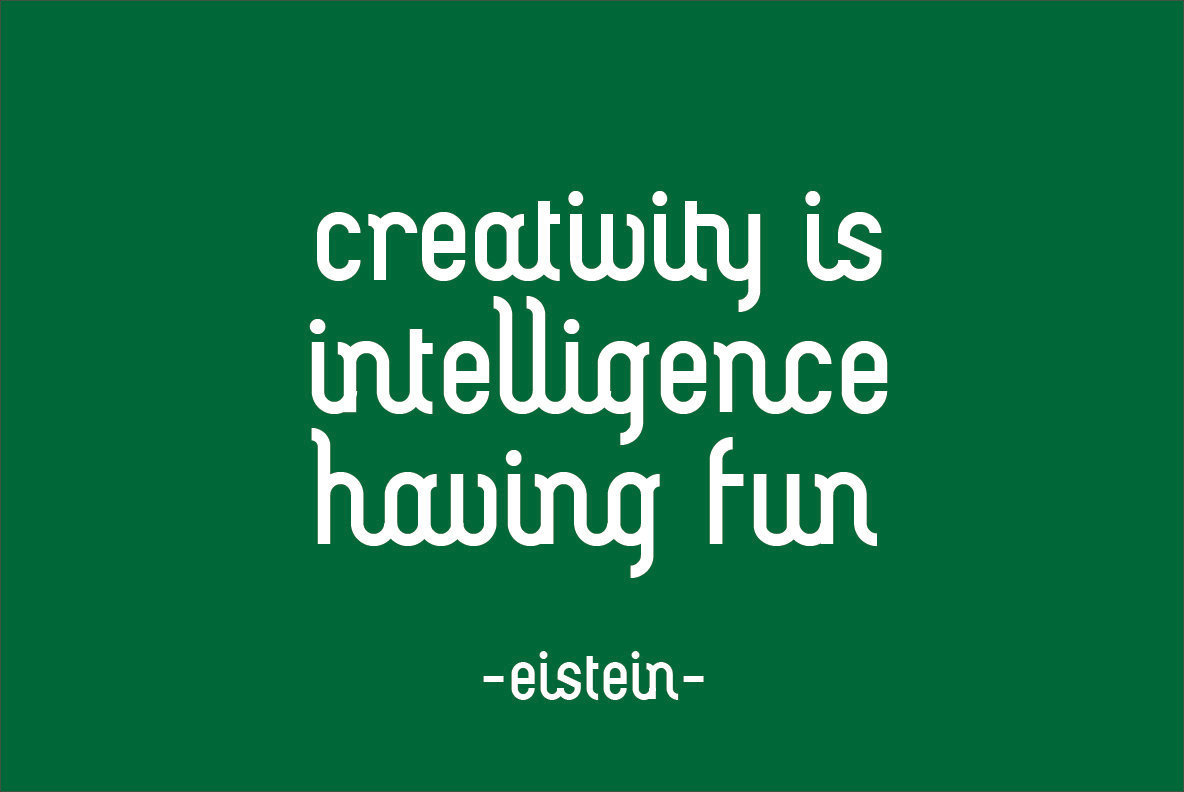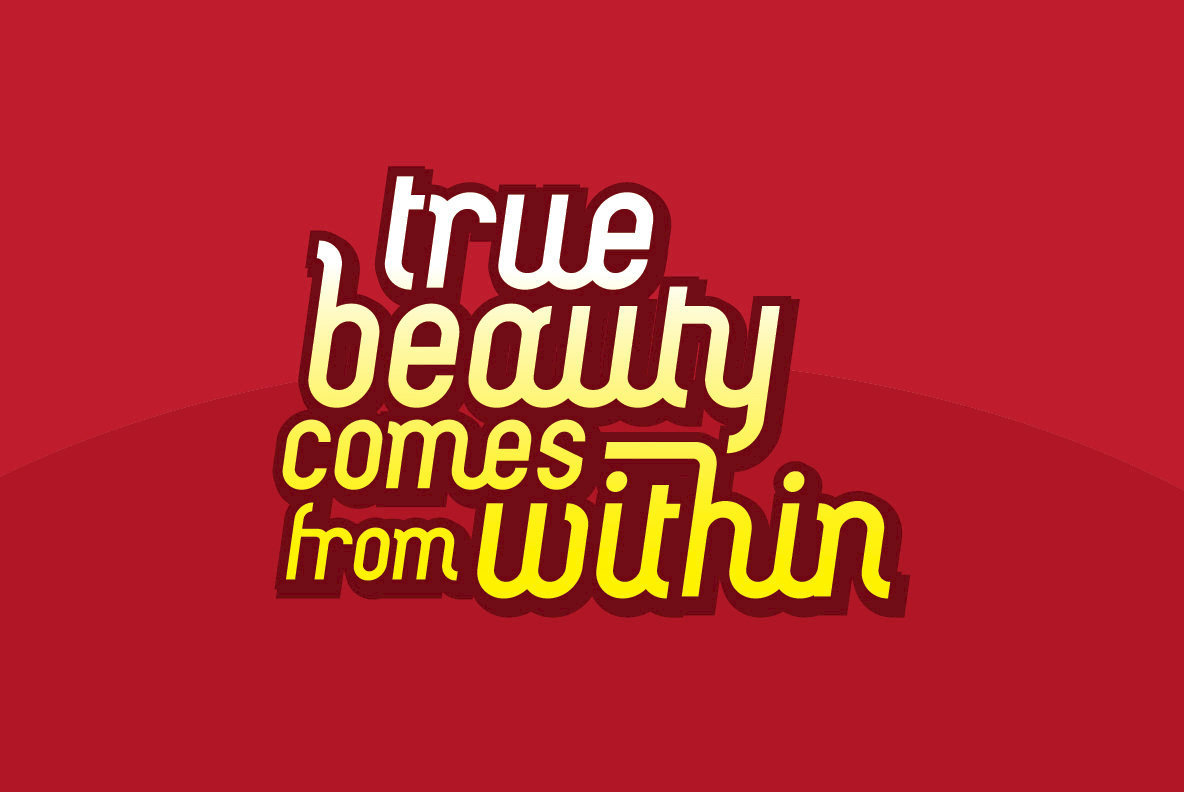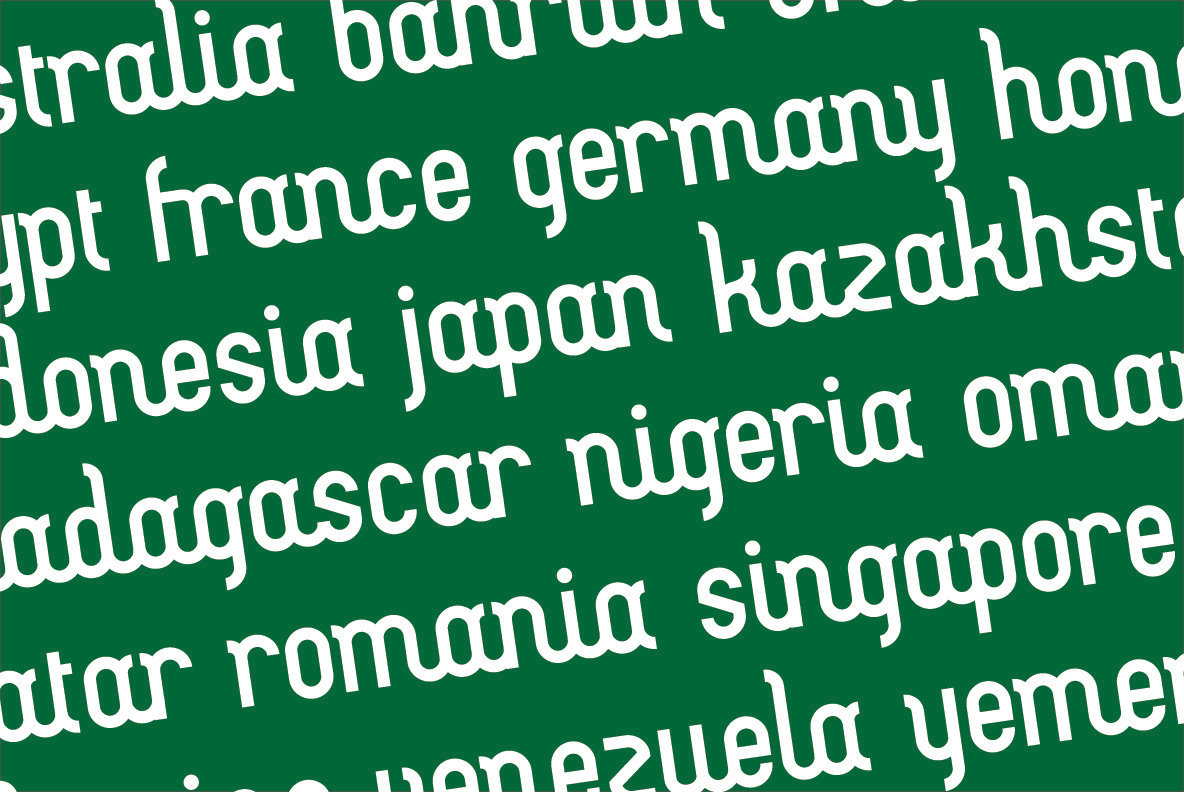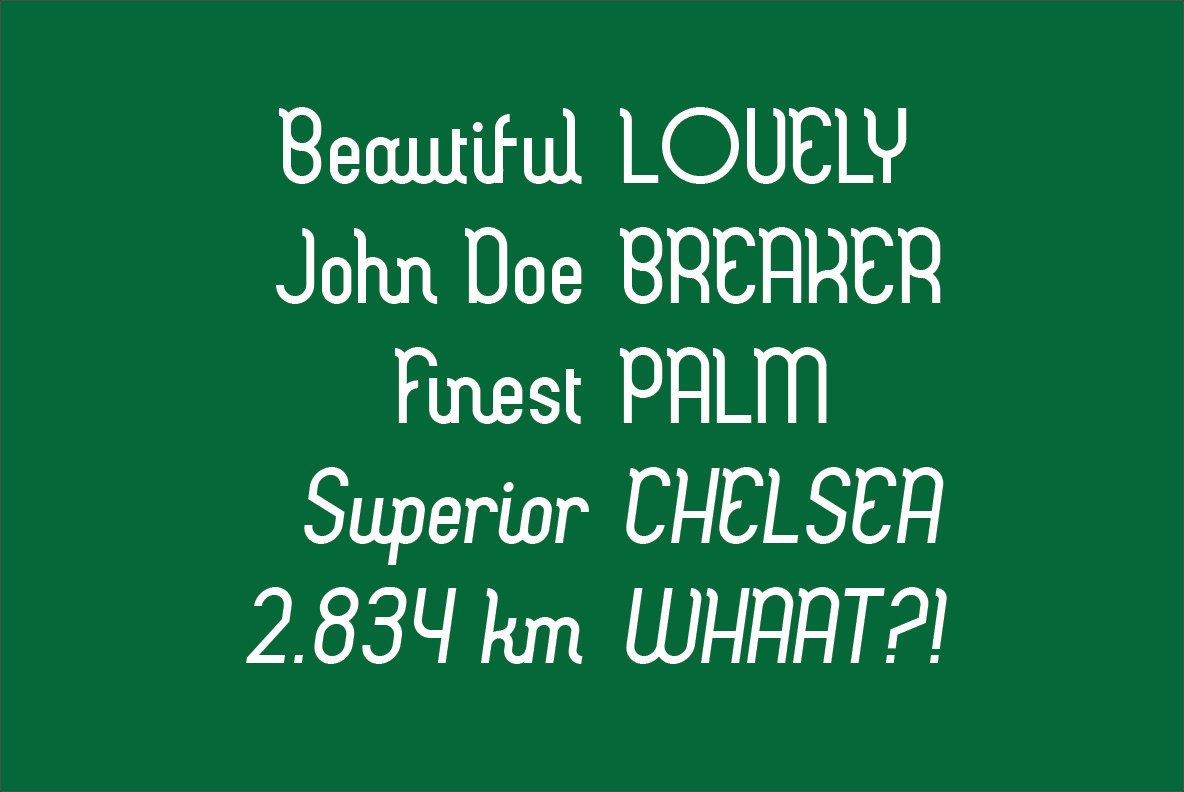
Lastweek Font
Lastweek
Lastweek Italic
Combining rounded geometric shapes, solid monoline and fun scripts, Lastweek can be an alternative to futuristic and high-tech fonts. Available in regular and italics as well as some opentype features like ligatures, stylistic sets; To make it easier for you to create cool and elegant designs.